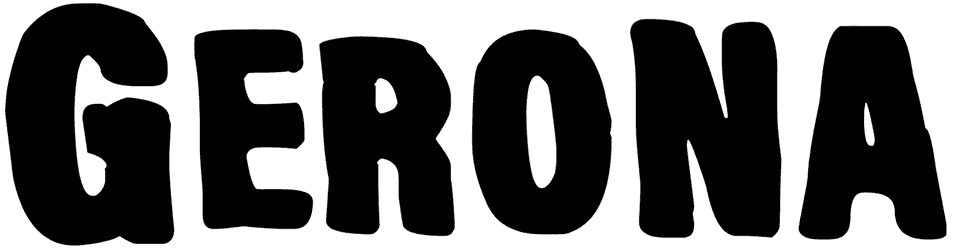
Gerona Font
With the help of an eroded font such as Gerona, your graphic content would stand out among thousands of artworks and grab the attention of the audience at first glance.
Its characters are tilted and boldly designed, so you can create a wide range of creative ideas, including posters, book covers, brochures, banners, and billboards, with ease of mind. While this 90s cartoon font lacks lowercase letters, it carries a sense of drama, jauntiness, grunge, and comfort.